Western fonts capture the bold, rugged feel of the Wild West with strong serifs and sharp edges. From ornate to minimalist, they blend vintage charm with modern versatility. Their striking style makes them perfect for impactful and memorable designs.
Rooted in Roman capitals and calligraphy, this font evolved with movable type in the 15th century. Styles like Old Style and Modern Roman shaped their development. Today, they retain their classic appeal while adapting to modern design trends.
Key Takeaways
- Western fonts feature bold serifs, sharp edges, and rustic details, embodying the Wild West aesthetic.
- These fonts range from classic Old Western styles to modern interpretations, offering versatility for various design projects.
- These fonts add vintage charm and strong visual impact, perfect for signage and digital graphics.
26 Rugged Western Fonts to Elevate Your Vintage Designs
Whether you’re designing branding materials or digital graphics, explore these 26 stunning Western font styles that will bring spirit to your designs.
1. Westner Vintage Western Font
Bold strokes and rugged serifs make this font ideal for vintage posters, signage, or branding that needs a tough Western aesthetic.
2. Mordela Western Vintage Font
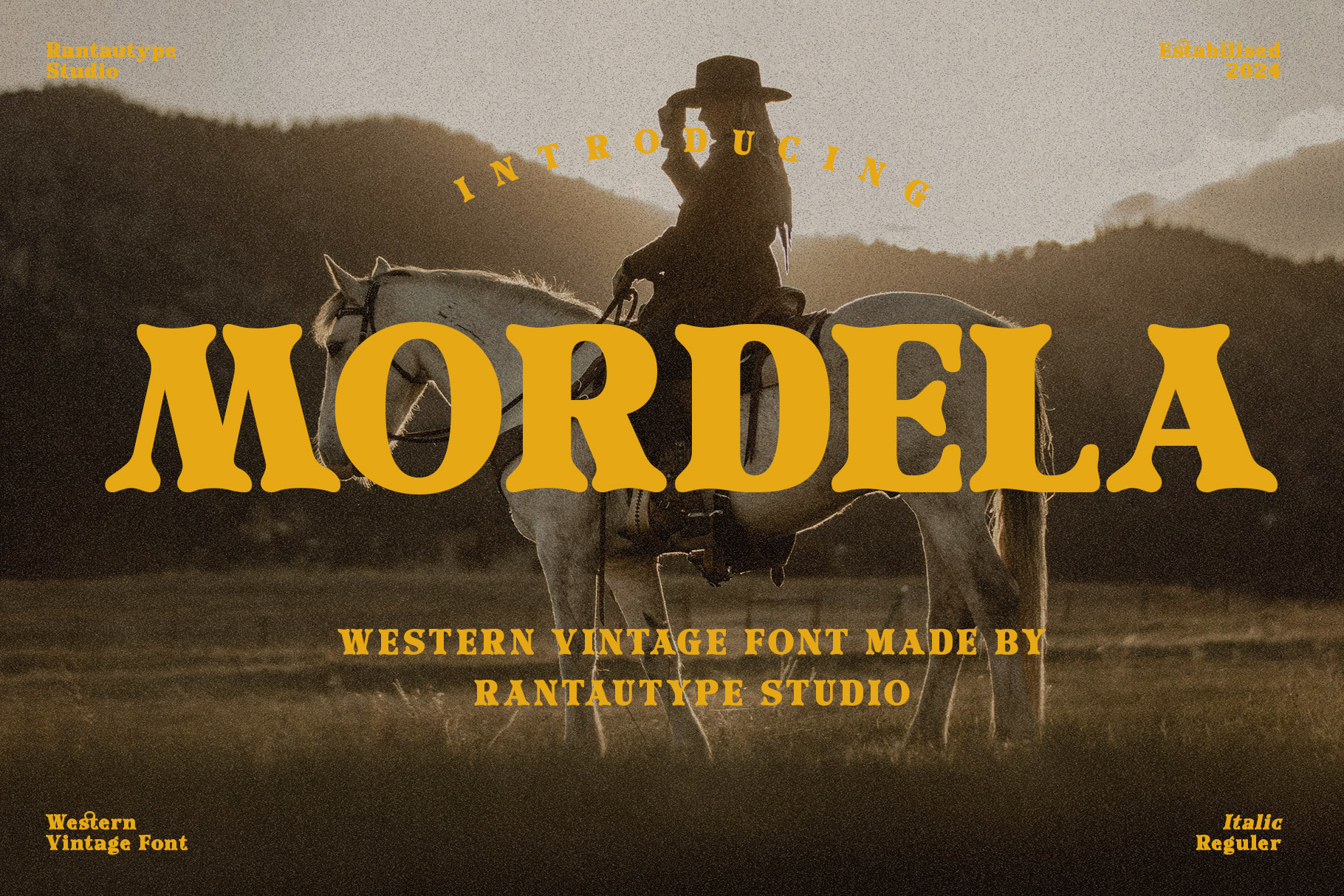
A perfect blend of refinement and rustic charm, featuring ornate details and classic serifs for timeless, vintage-inspired branding and design.
3. Burgeon Decorative Western Font
Eye-catching and intricate, this bold decorative font is ideal for Western-themed headlines, posters, and projects needing a striking visual impact.
4. Roger Display Retro Southwestern Font
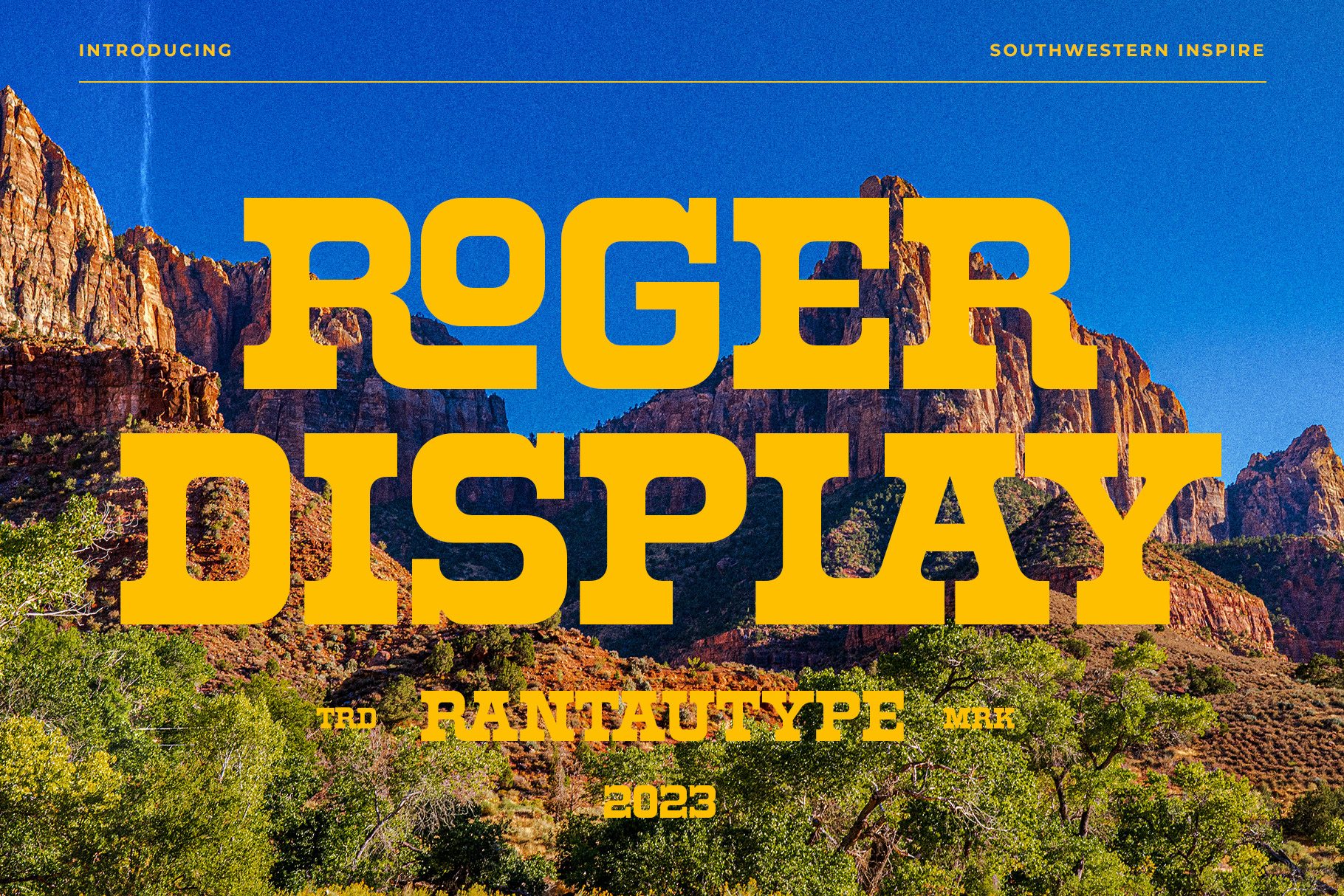
A nostalgic mix of retro and Western elements, this old Western font is perfect for vintage signage, bold advertisements, and branding with a Southwestern touch.
5. Recilda Vintage Serif Font
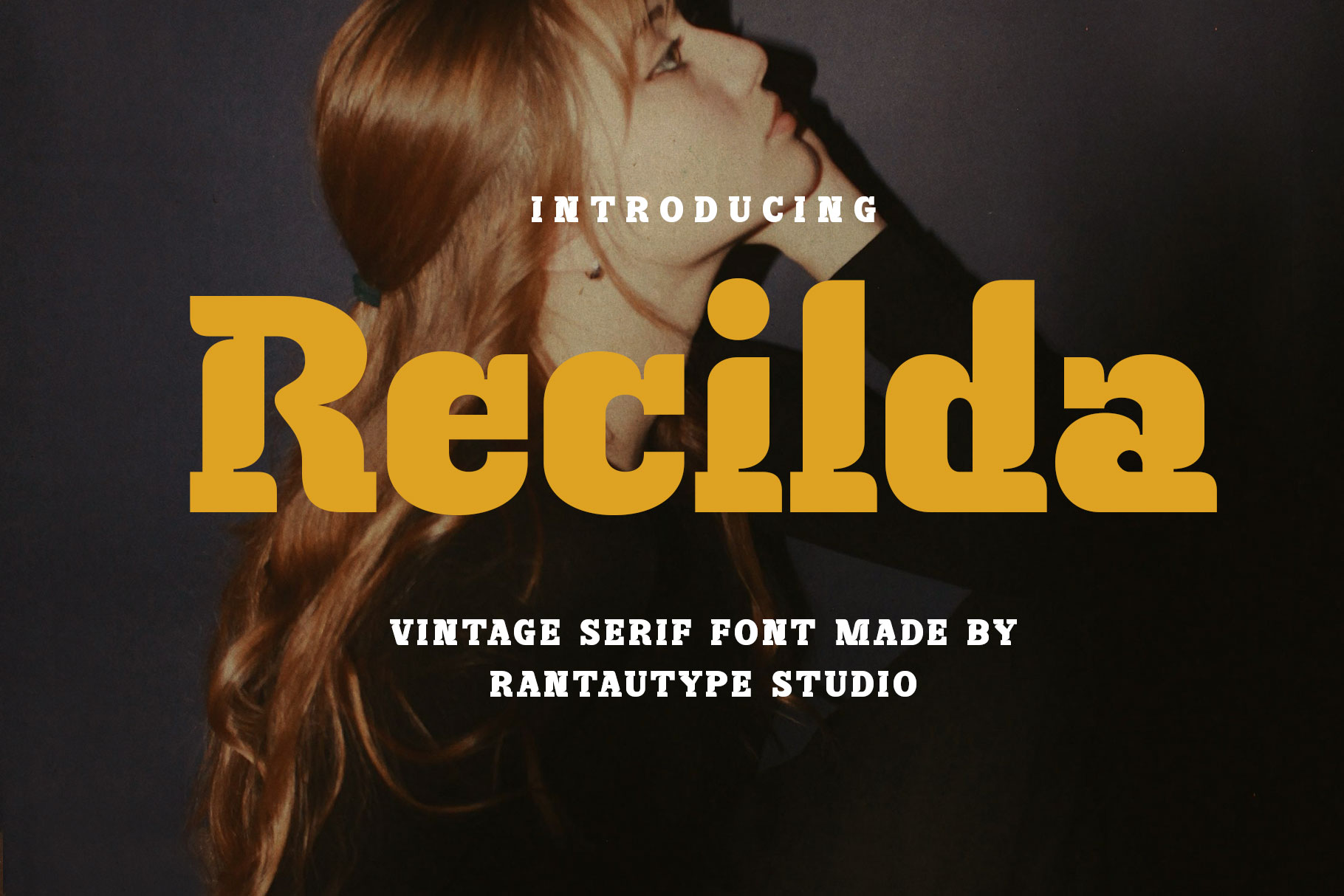
Timeless elegance meets vintage charm in this refined serif font, perfect for editorial layouts, upscale branding, and classic Western aesthetics.
6. Caderia Vintage Display Serif Font
Decorative serifs and graceful curves add a stylish touch to this Western elegance, making it ideal for logos, signage, and sophisticated rustic-themed designs.
7. Gardina Bold Vintage Font
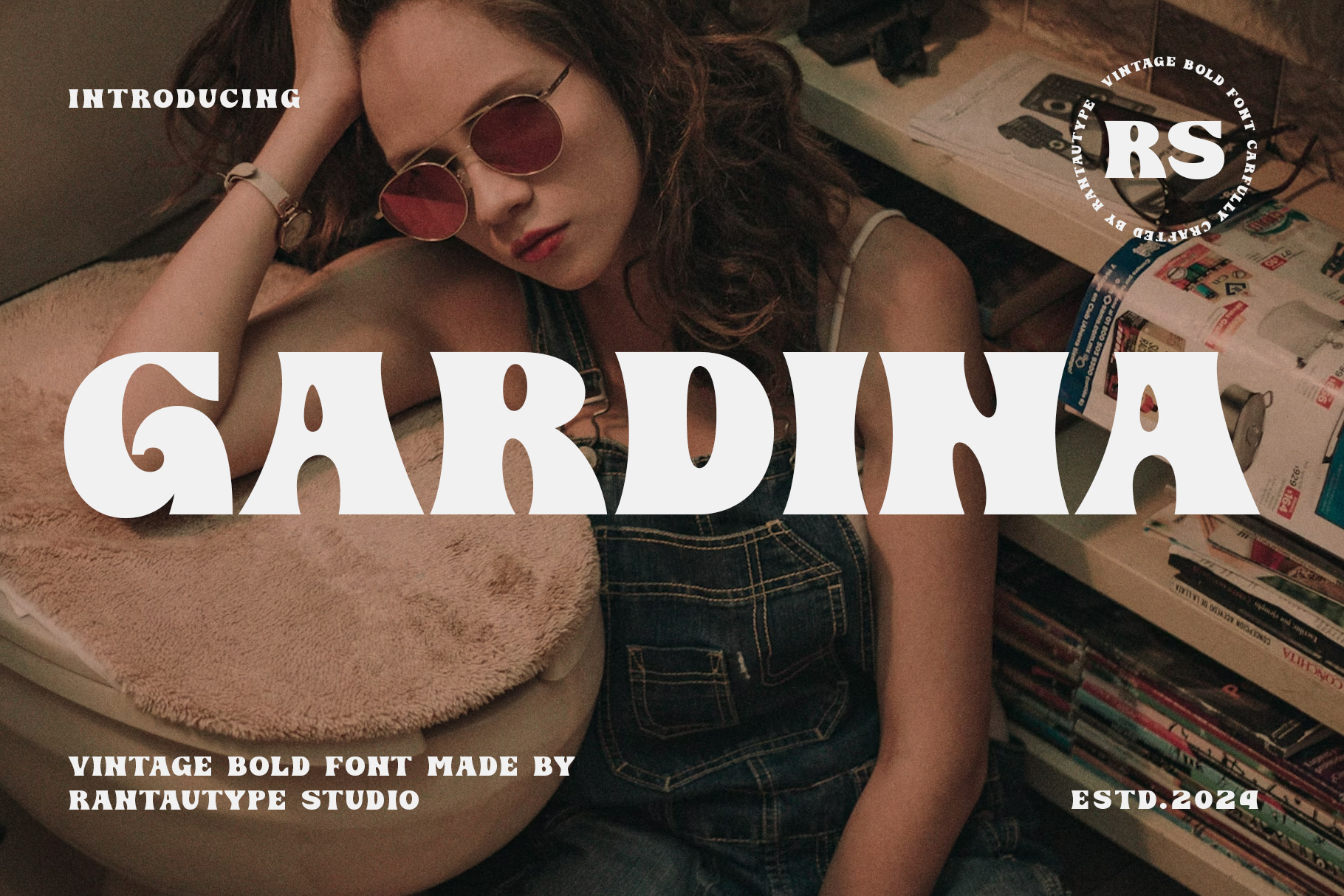
With bold serifs and vintage charm, Gardina delivers strong, impactful text, ideal for Western posters, branding, and eye-catching headlines.
8. Belisona Old-Fashioned Vintage Font
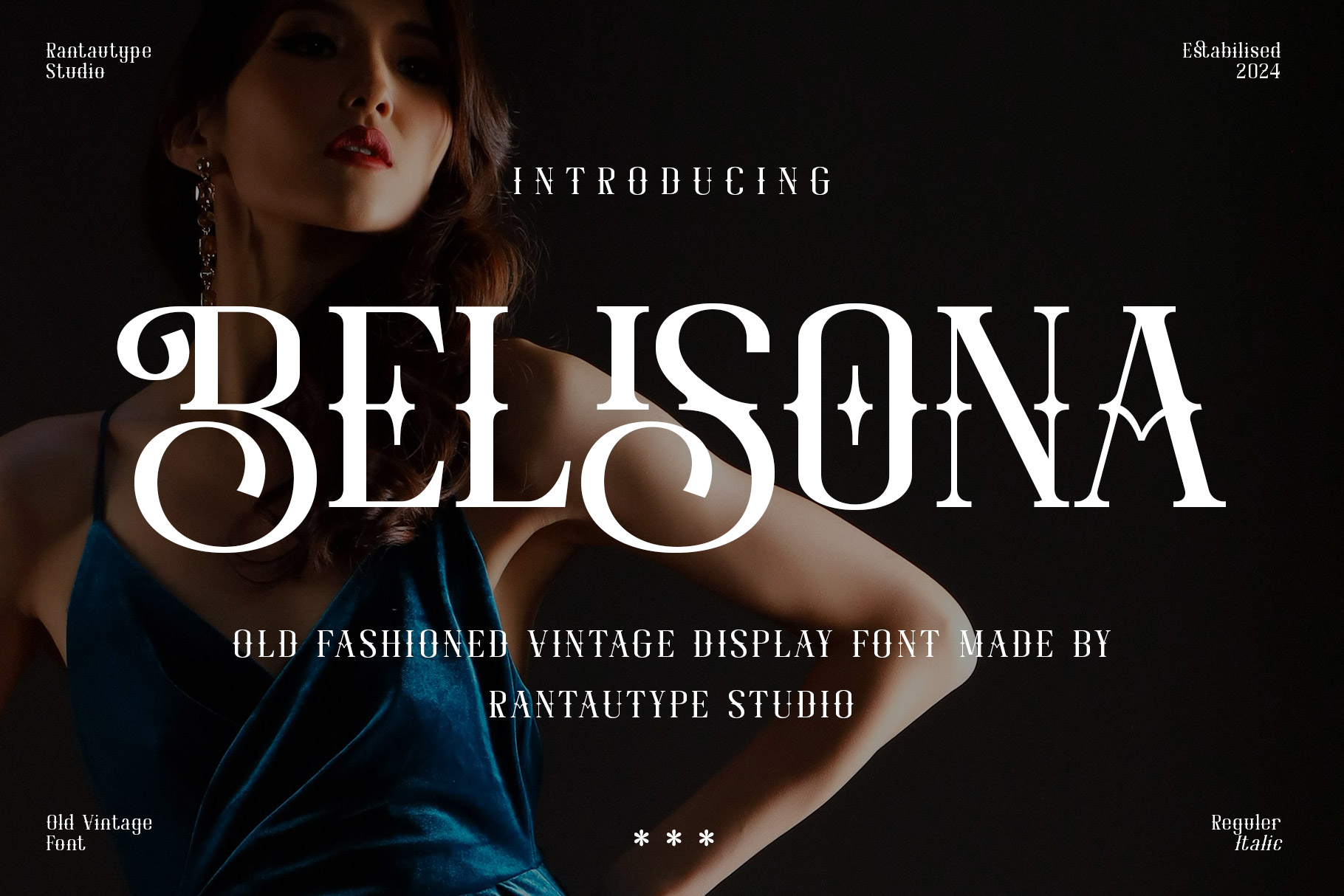
Classic and nostalgic, Belisona’s sophisticated serif details bring Western heritage to book covers, vintage posters, and branding projects.
9. Bindacy Vintage Elegant Script Font
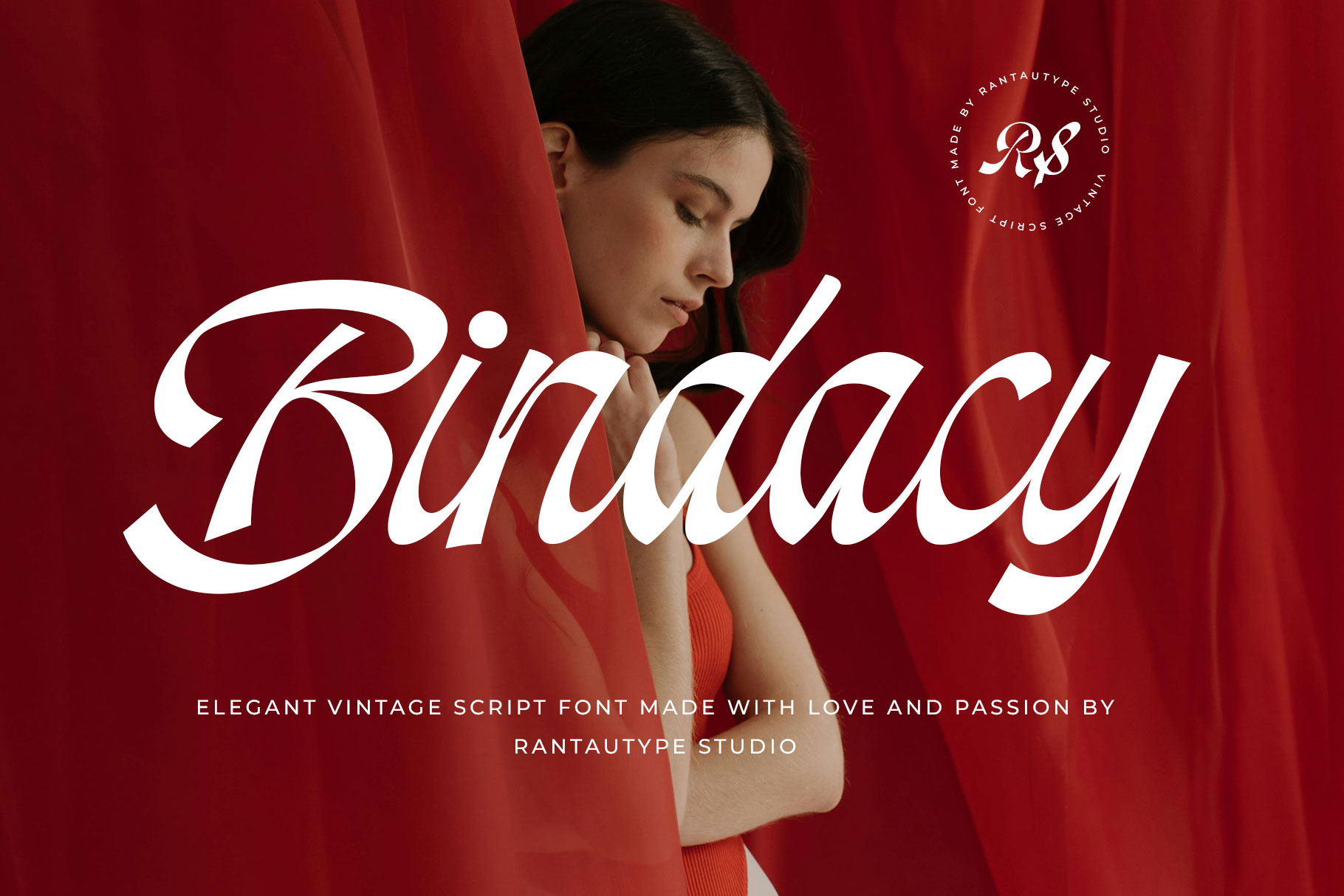
A handwritten script with Western elegance, perfect for invitations, greeting cards, and stylish vintage branding that demands a sophisticated touch.
10. Namely Old Vintage Retro Font
Authentic Western charm with aged textures and classic serifs, making it a top choice for vintage branding and themed design projects.
11. Nervida Classic Vintage Font
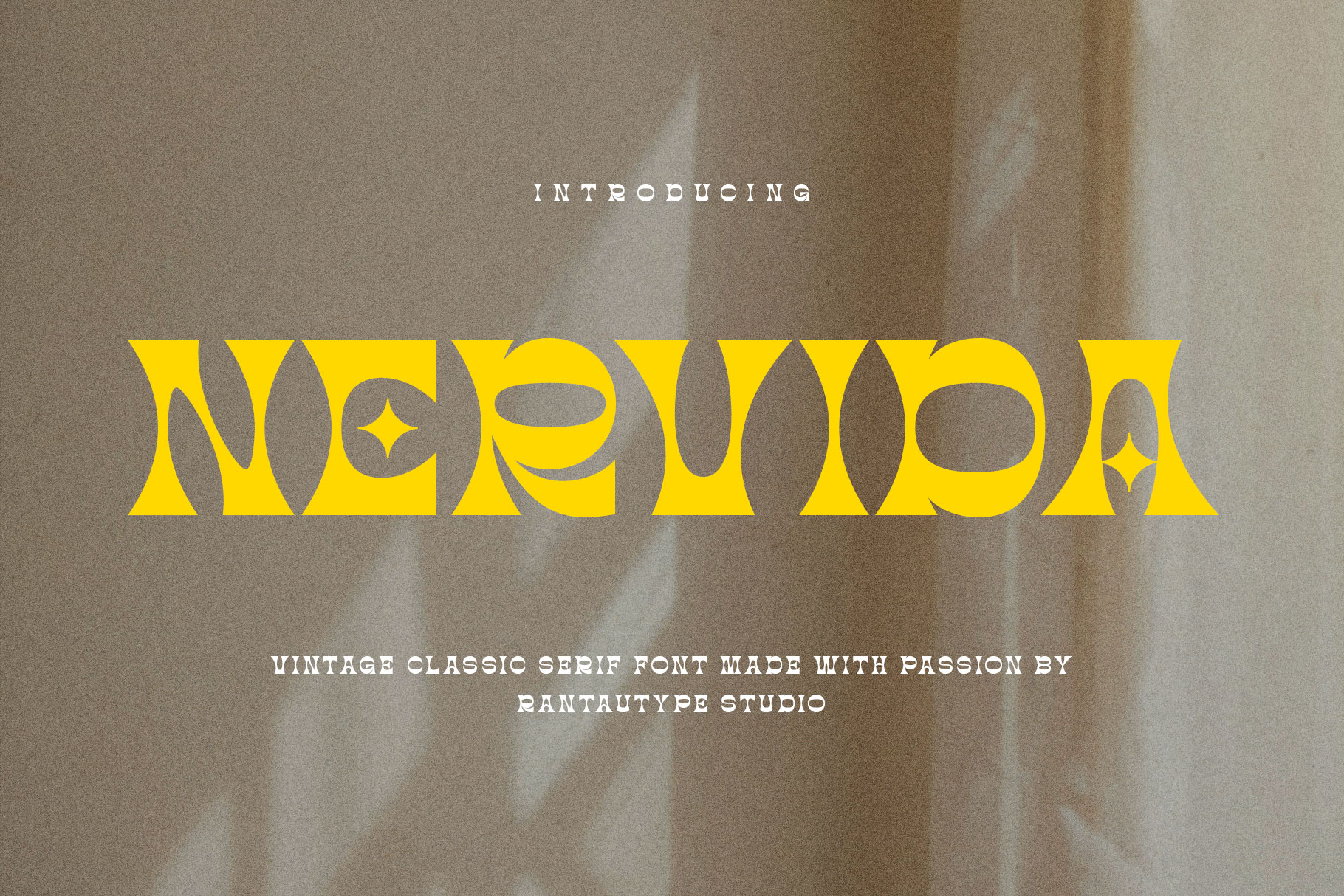
One of the timeless serif Western fonts with subtle vintage touches for editorial layouts, branding, and Western-themed typography with classic appeal.
12. Genira Vintage Classic Display Font
Bold and detailed, Genira’s strong display design is great for logos, packaging, and vintage advertising with a striking Western edge.
13. Maneria Display Vintage Font
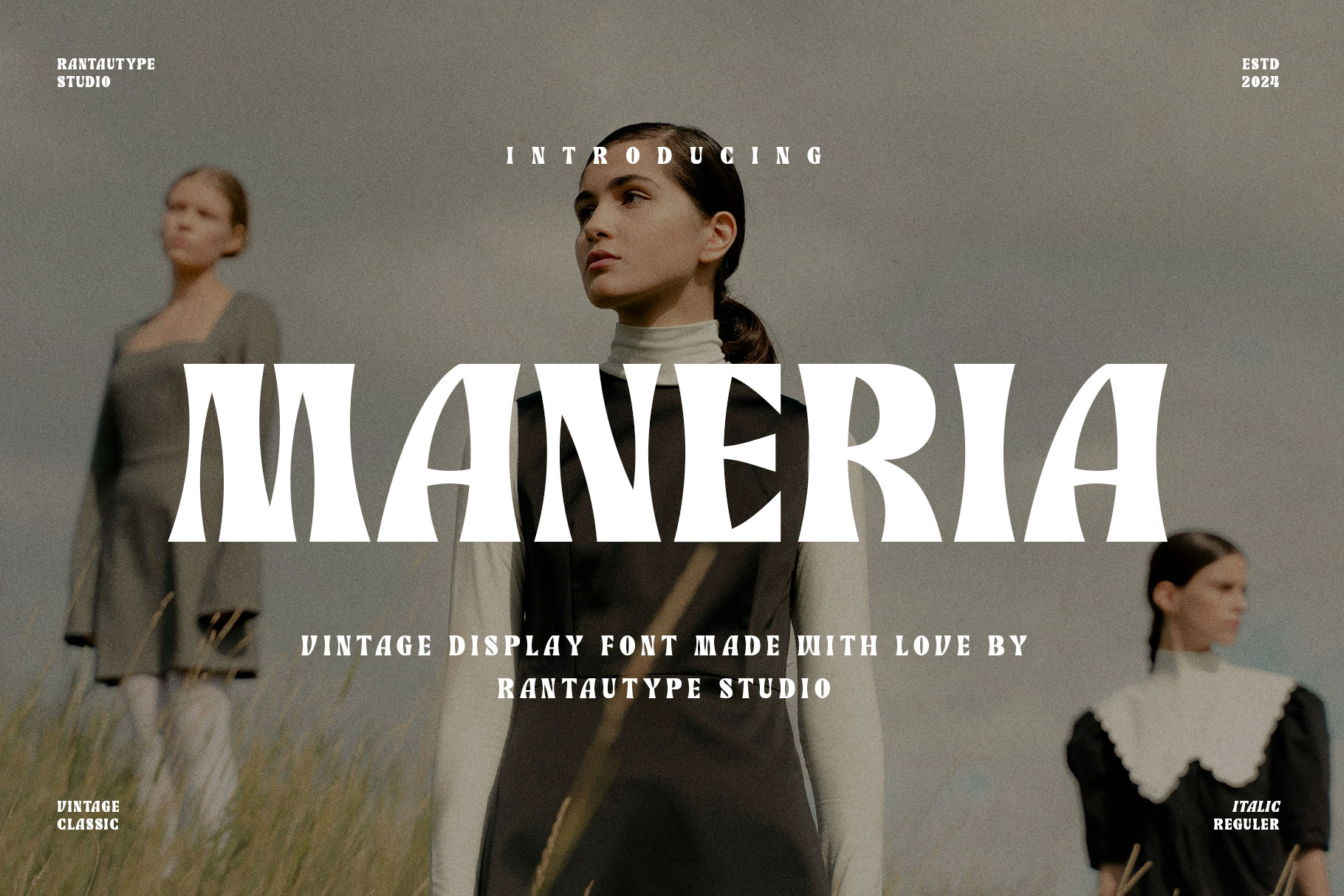
Elegant yet rustic, Maneria’s vintage personality enhances posters, logos, and creative projects needing a stylish, Western-inspired aesthetic.
14. Balleya Vintage Script Font
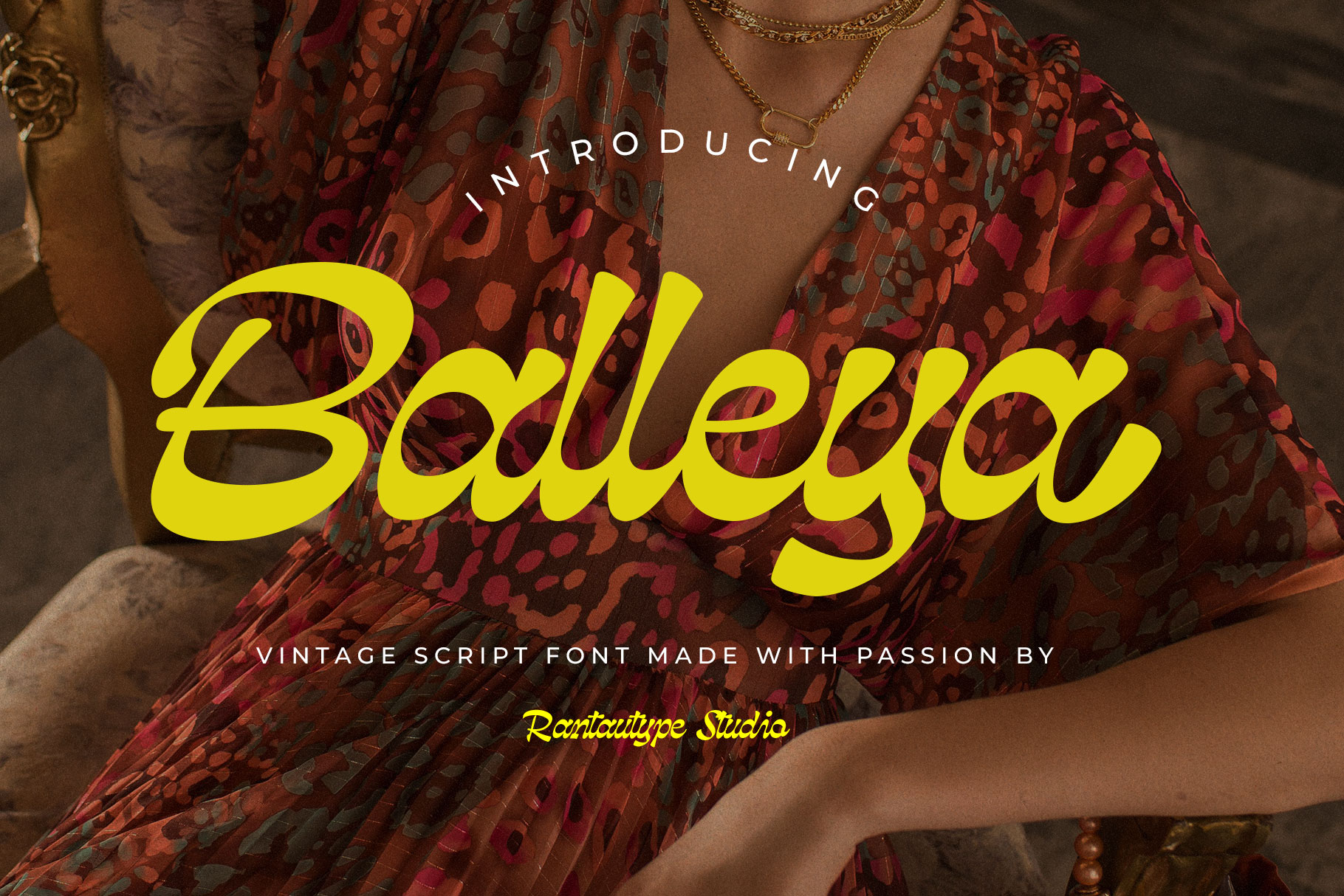
Graceful swirls and flowing script deliver vintage Western charm, ideal for invitations, signage, and sophisticated branding projects.
15. Regasti Vintage Display Font
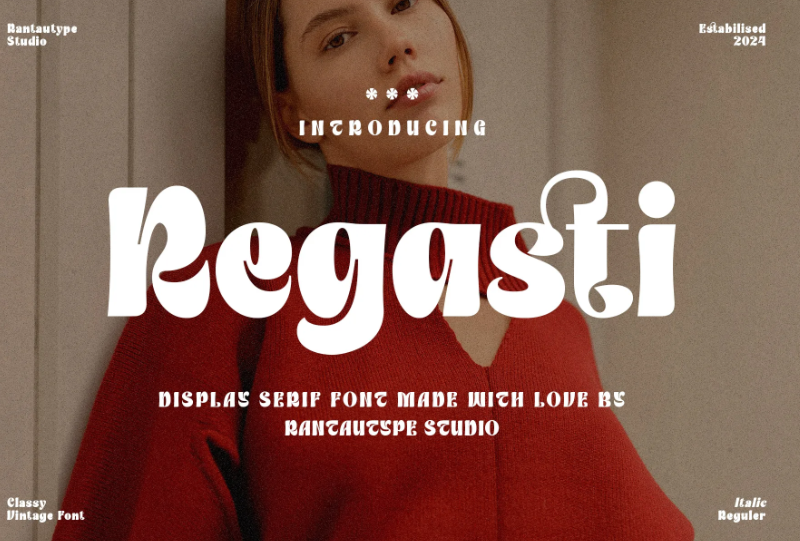
Bold serifs and strong design presence make Regasti perfect for headlines, signage, and posters, blending vintage charm with a modern Western font appeal.
16. Radelna Vintage Script Font
Western nostalgia meets artistic elegance with Radelna’s flowing script, great for branding, quotes, or refined vintage-themed invitations.
17. Malbern Vintage Decorative Font
Filled with intricate flourishes, Malbern’s decorative elements make it excellent for unique Western titles, signage, and creative typography.
18. Benira Vintage Classy Serif Font
A premium vintage serif that blends Western aesthetics with elegant branding, making it ideal for print designs and sophisticated projects.
19. Cenoria Vintage Classic Font
A classic Western serif with subtle textures, perfect for editorial layouts, branding, and typography that embraces timeless Western charm.